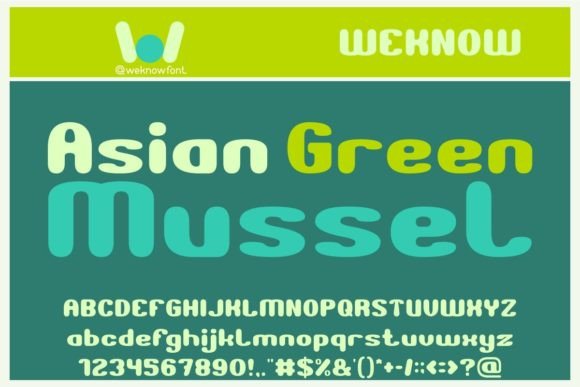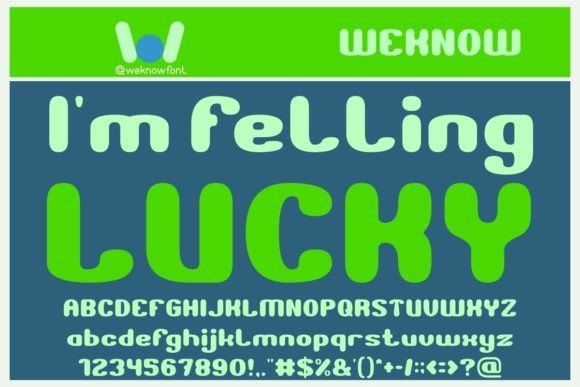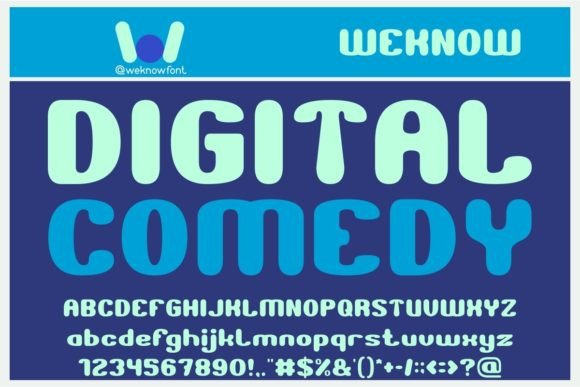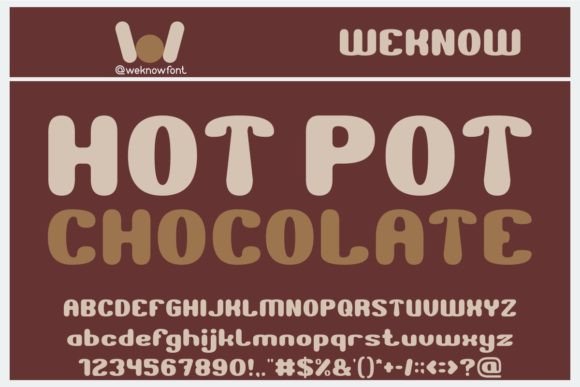
The Ultimate Guide to Cheese Burger Font: Adding a Touch of Youth and Joy to Your Designs
I’ll never forget the time I was working on a project for a client’s kids’ party invitation. I had the design concept nailed, but something was missing – the perfect font. I scoured the internet, tried out a dozen fonts, but none seemed quite right. That was until I stumbled upon the Cheese Burger font. It was love at first sight! 🎉 The playful, bubbly letters instantly captured the youthful and fun vibe I was going for. In this article, I’ll share my experience with the Cheese Burger font, its features, and how to make the most of it in your designs.
- ✨ Unique and Playful Design: The Cheese Burger font is a cool and unique display font that’s perfect for adding a touch of youth and joy to your designs.
- ✅ Easy to Read: Despite its playful design, the font is surprisingly easy to read, even in larger blocks of text.
- 💡 Versatile: Use it for party invitations, social media graphics, or any design that requires a dash of fun and whimsy.
While the Cheese Burger font is amazing, there are a few things to keep in mind:
- 🤔 Legibility at Small Sizes: Like many display fonts, Cheese Burger can get a bit tricky to read at smaller sizes. Use it for headlines or titles, and consider a secondary font for body text.
- ⚠️ Limited Glyphs: The font might not have an extensive range of glyphs or special characters, so plan your design accordingly.
One of the best things about the Cheese Burger font is its OpenType features. With glyphs and stylistic alternates, you can add more variety to your text and make it more engaging. Here are some tips:
- Experiment with different glyphs to add more personality to your text.
- Use stylistic alternates to create a more dynamic look.
- Don’t be afraid to mix and match different font styles to create a unique look.
The Story Behind Cheese Burger Font
The Cheese Burger font was designed with one goal in mind: to create a fun, playful font that’s perfect for designs that require a youthful touch. The designer, inspired by the nostalgia of childhood summers and backyard BBQs, crafted a font that’s both unique and easy to read.
Q: What type of designs is Cheese Burger font best suited for?
A: Cheese Burger font is perfect for designs that require a touch of youth and joy, such as party invitations, social media graphics, and flyers.
Q: Is Cheese Burger font easy to read?
A: Yes, despite its playful design, Cheese Burger font is surprisingly easy to read, even in larger blocks of text.